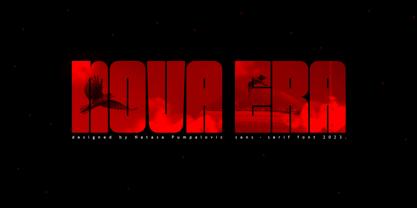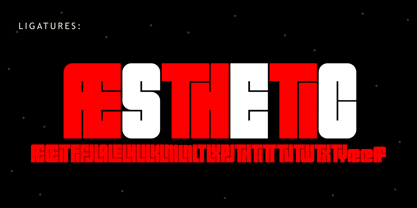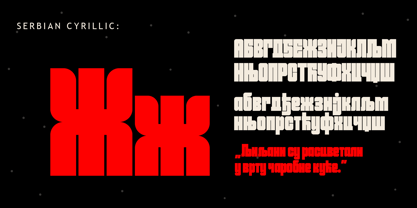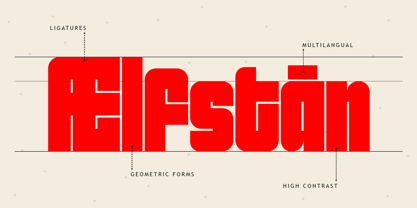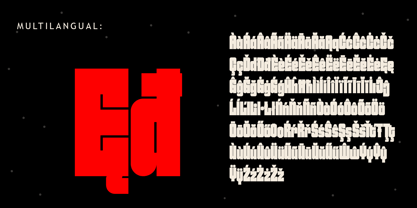
Nova Era
The Nova Era Font Family was designed by Natasa Pumpalovic and published by NP Type. Nova Era contains 1 styles. More about this family
Nova Era is a modern sans-serif font known for its increased letter thickness and minimal
spacing. The geometric shapes of this font make it especially suitable for various design
projects, including branding, advertising campaigns, packaging design, and posters. It
supports both Latin and Cyrillic scripts, including diacritics and ligatures, which makes it
functional in diverse language environments. Additionally, Nova Era supports languages of
Western and Central Europe, enhancing its flexibility.